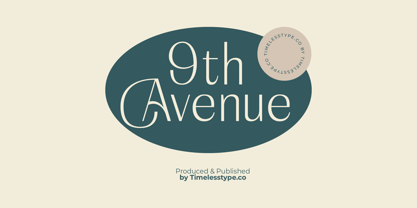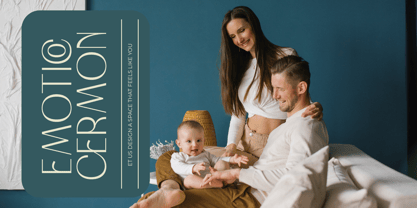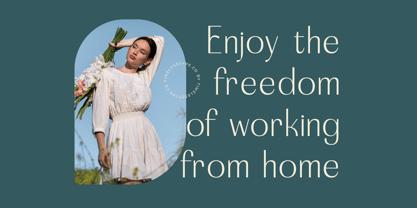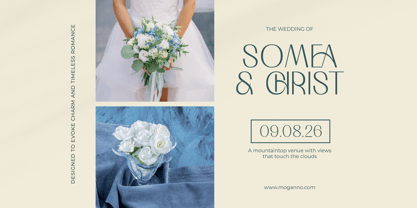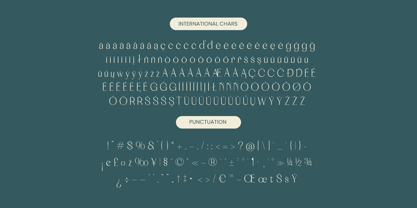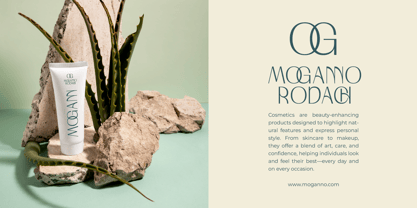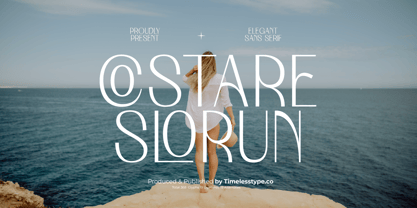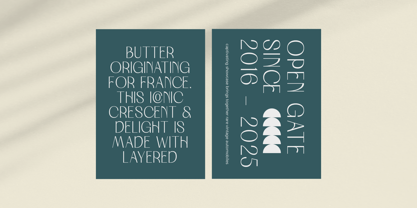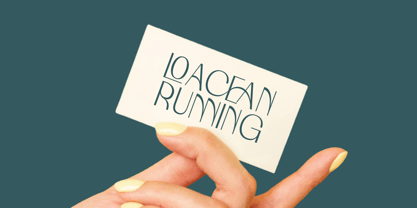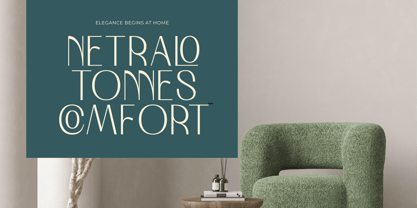
Costare Slorun
The Costare Slorun Font Family was designed by Heru Utama Putra and published by Timelesstype Studio. Costare Slorun contains 2 styles and family package options. More about this family
Costare Slorun - Elegant Sans Serif Font , from Timelesstype , Suitable for any projects such as: logos, branding projects, homeware designs, product packaging, mugs, quotes, posters, shopping bags, t-shirts, book covers, name card, invitation cards, greeting cards, label, photography, watermark, special events, and all your other luxury and beautiful projects that need a Luxury Serif taste.